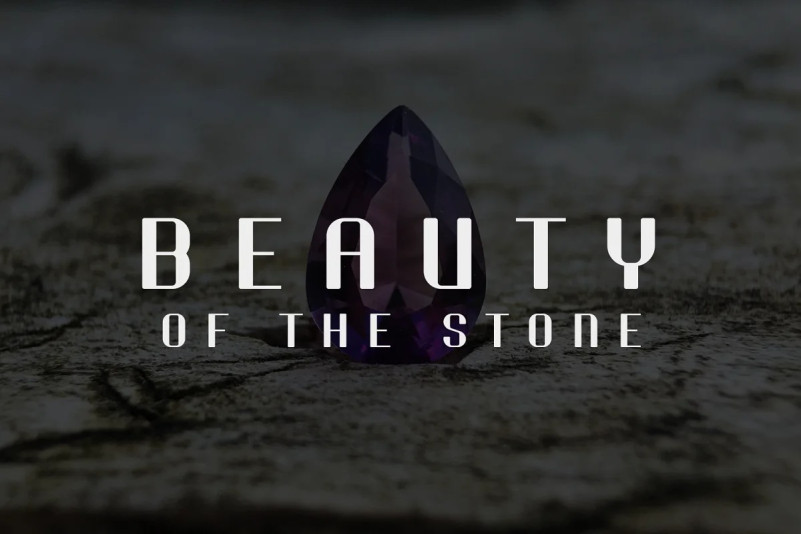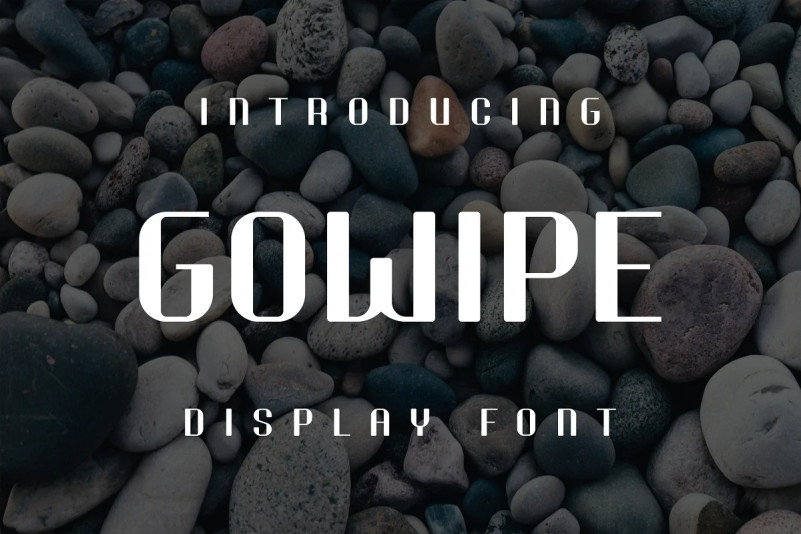
Gowipe Font
Gowipe Display Font is a fun and unique display font. No matter the topic, this font will be an incredible asset to your fonts’ library, as it has the potential to elevate any creation.